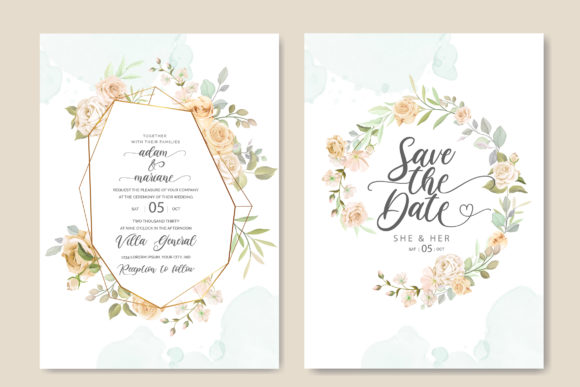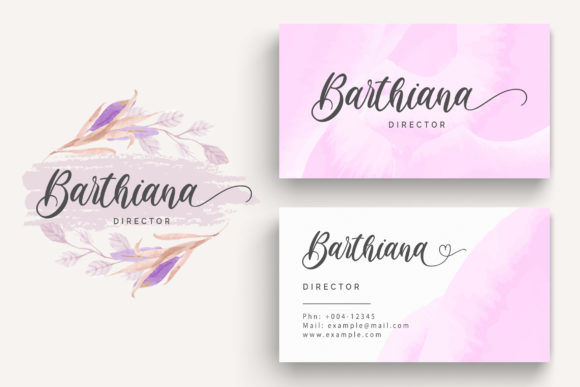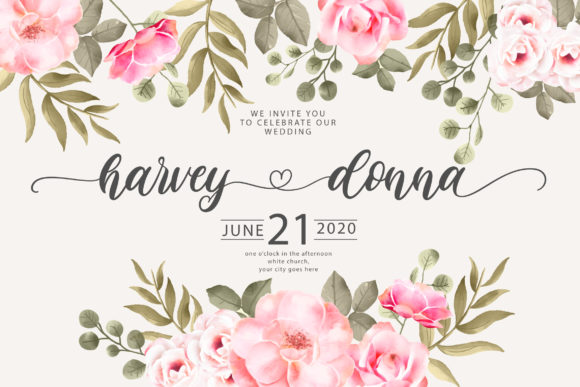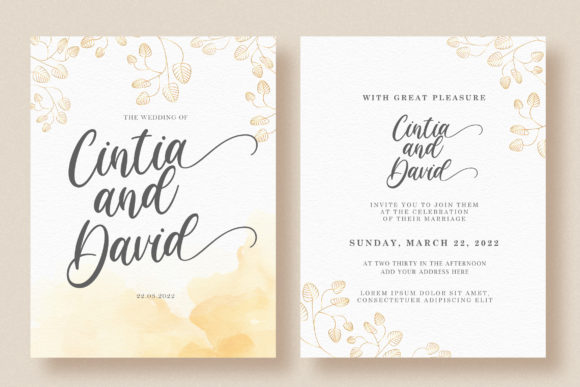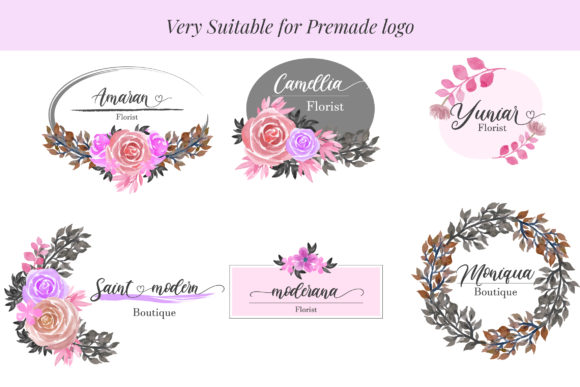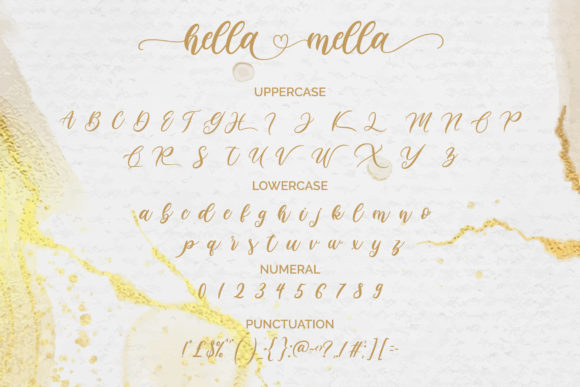
Hella Mella Font: The Perfect Choice for Your Creative Projects
Are you looking for a font that can add a touch of elegance and sophistication to your designs? Look no further than the Hella Mella font. This lovely script font is perfect for creating beautiful wedding invitations, stunning stationary art, eye-catching social media posts, and adorable greeting cards. In this article, we’ll take a closer look at the Hella Mella font and explore its features, benefits, and uses.
What is Hella Mella Font?
Hella Mella is a script font that boasts an authentic feel, making it perfect for designs that require a personal touch. Its smooth lines, gorgeous glyphs, and stunning alternates make it a versatile font that can be used for a wide range of creative projects. Whether you’re a designer, crafter, or DIY enthusiast, Hella Mella is a great choice for adding a touch of elegance to your work.
Features of Hella Mella Font
So, what makes Hella Mella font so special? Here are some of its key features:
- Varying Baseline: The font features a varying baseline, which gives it a natural and organic feel. This makes it perfect for creating designs that require a personal touch.
- Smooth Lines: Hella Mella font has smooth lines that make it easy to read and visually appealing.
- Gorgeous Glyphs: The font comes with a range of gorgeous glyphs that can be used to add a touch of elegance to your designs.
- Stunning Alternates: Hella Mella font also features stunning alternates that can be used to add some variety to your designs.
Uses of Hella Mella Font
So, what can you use Hella Mella font for? The possibilities are endless! Here are some ideas to get you started:
- Wedding Invitations: Hella Mella font is perfect for creating beautiful wedding invitations that will set the tone for the big day.
- Stationary Art: The font can be used to create stunning stationary art, including notecards, journals, and planners.
- Social Media Posts: Hella Mella font can be used to create eye-catching social media posts that will grab the attention of your followers.
- Greeting Cards: The font is perfect for creating adorable greeting cards for special occasions, including birthdays, holidays, and anniversaries.
Benefits of Using Hella Mella Font
So, why should you choose Hella Mella font for your creative projects? Here are some benefits of using this lovely script font:
- Elegant and Sophisticated: Hella Mella font adds a touch of elegance and sophistication to your designs, making them perfect for special occasions.
- Versatile: The font is versatile and can be used for a wide range of creative projects, from wedding invitations to social media posts.
- Unique: The font’s varying baseline and stunning alternates make it unique and eye-catching.
In conclusion, Hella Mella font is a lovely script font that is perfect for designers, crafters, and DIY enthusiasts. Its authentic feel, smooth lines, gorgeous glyphs, and stunning alternates make it a versatile font that can be used for a wide range of creative projects. Whether you’re creating wedding invitations, stationary art, social media posts, or greeting cards, Hella Mella font is a great choice. So why not give it a try and see the difference it can make to your designs?